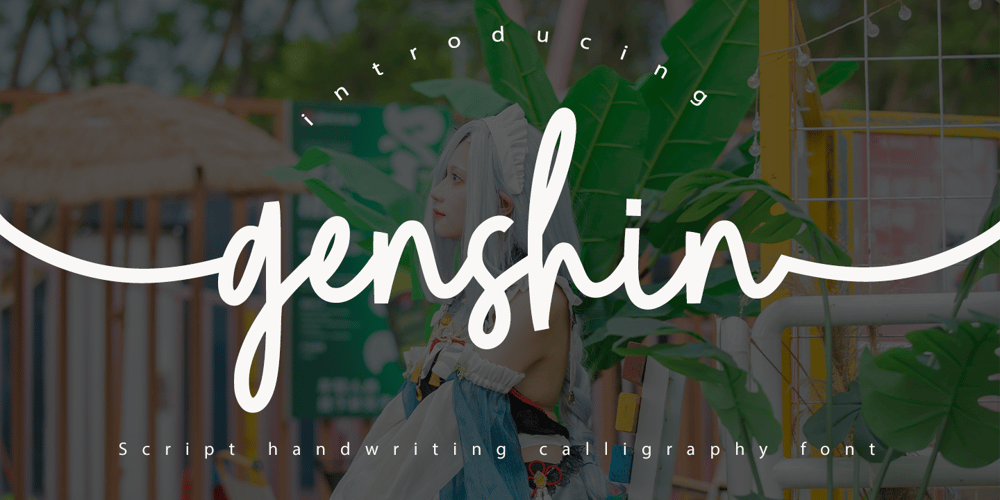
Genshin Font Family was designed by Muhammad Zaini and published by Cocodesign. Genshin contains 1 styles and family package options. Genshin is a natural handwritten font, this font Is perfect for logos, invitations, stationery, wedding designs, social media posts, advertisements, product packaging, product designs, label, photography, watermark, special events, or anything.Still Audrey Signature comes with a full set of uppercase and lowercase letters, lowercase swashes, multilingual symbols, numerals, punctuation.